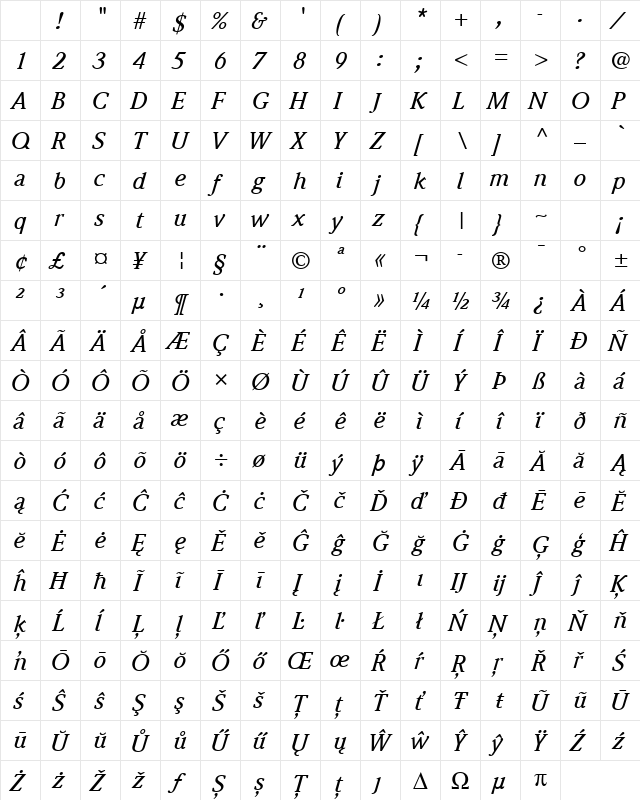
Complete ITC Weidemann Com Medium Italic glyph index. Displaying only characters natively supported by ITC Weidemann Com Medium Italic font.
ITC Weidemann Com is a composed and adaptable typeface that performs quietly and consistently across a wide range of design contexts. The slanted form adds forward momentum and visual energy.
Pro Tip: Use ITC Weidemann Com for emphasis, pull quotes, and subheadings where its slanted energy can add rhythm to the layout.